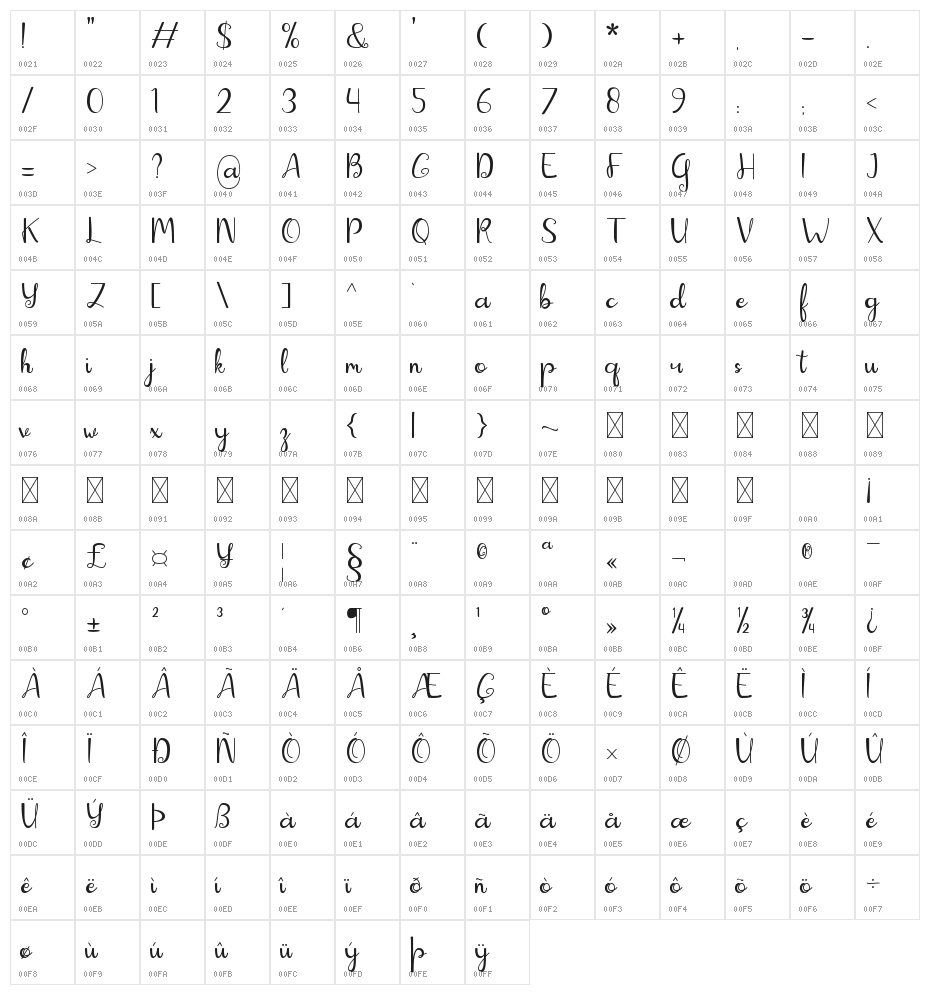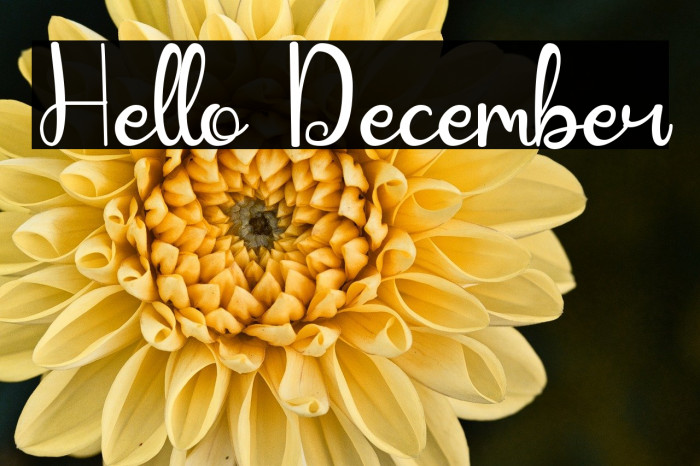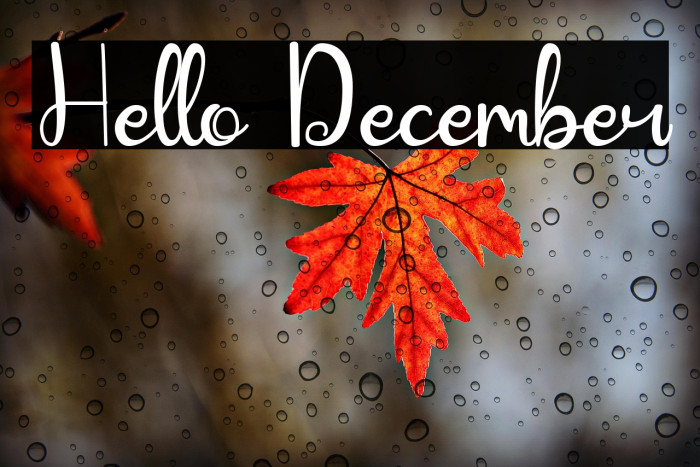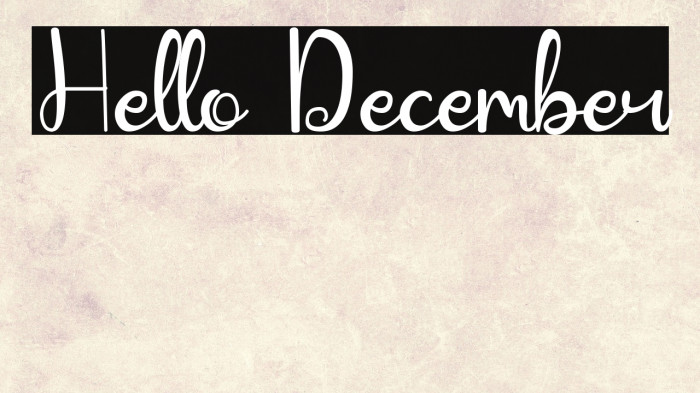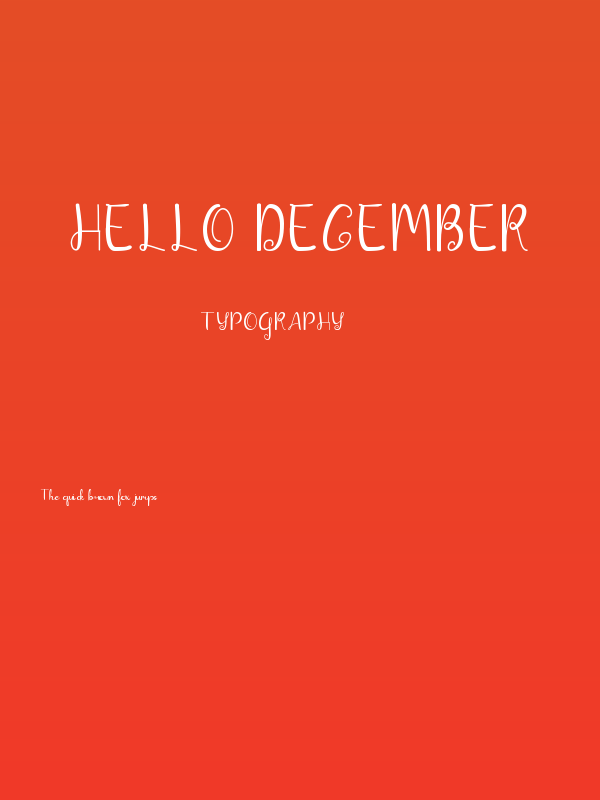
Hello December Font
Hello December Description
This font features a playful and whimsical style with a handwritten appearance. The uppercase letters are tall and slender, with unique loops and curls that add a touch of elegance and creativity. The lowercase letters maintain a consistent flow, with some characters featuring distinctive swashes and flourishes. Numbers are bold and clear, complementing the overall style. Special characters are designed with the same playful aesthetic, making them suitable for various creative applications. The font's overall appearance is both charming and versatile, making it ideal for projects that require a personal touch.
| Overall Style | Whimsical |
| Use Case | Logos, Invitations, Greeting Cards |
| Proposed Projects | Ideal for greeting cards, invitations, personal branding, and creative projects. |